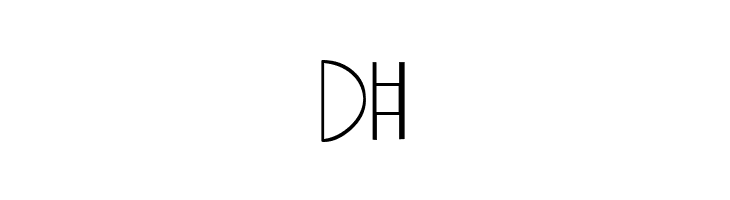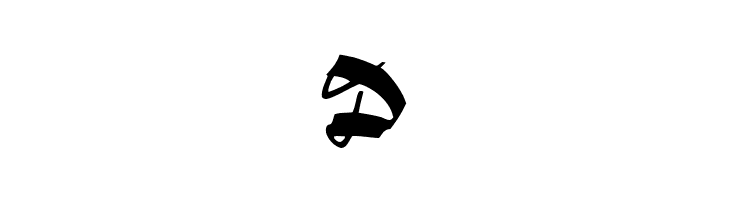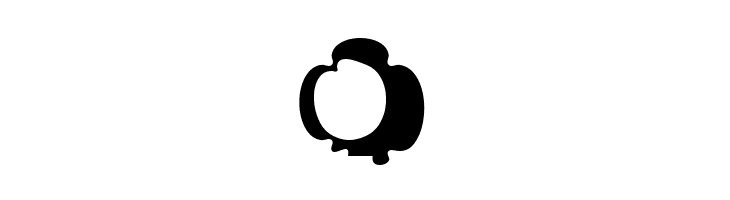
A bold, swash-filled font with a calligraphic and dynamic style.
A bold, condensed, and slanted font with tight spacing and a dynamic style.
A whimsical and airy font with delicate, flowing strokes.
A bold, geometric font with a futuristic and industrial design.
A futuristic, geometric font with bold, structured characters.
A bold, geometric font with sharp angles and a modern edge.